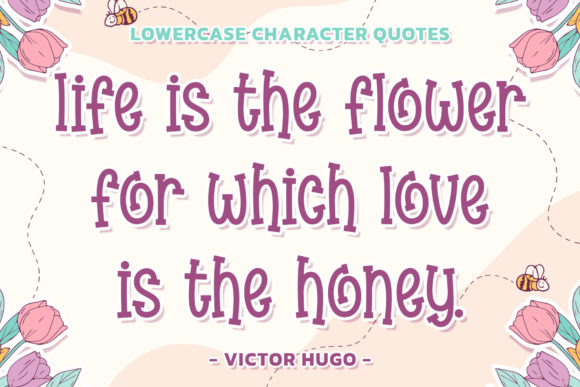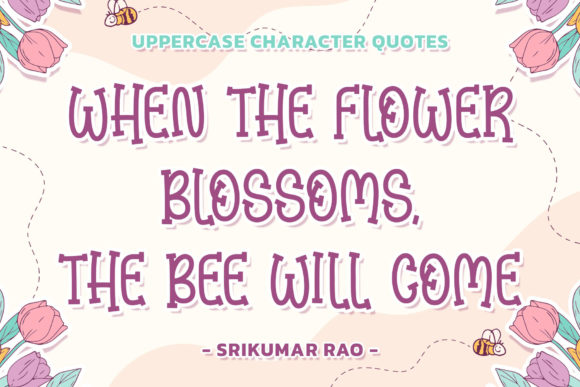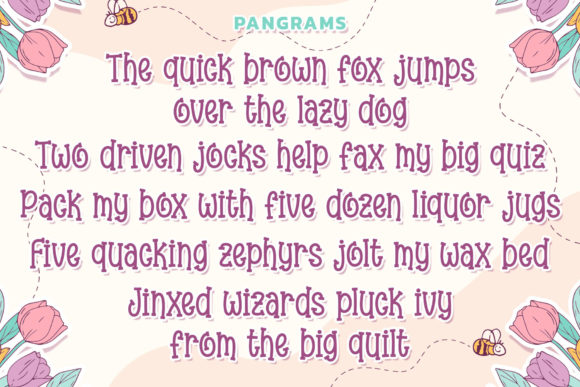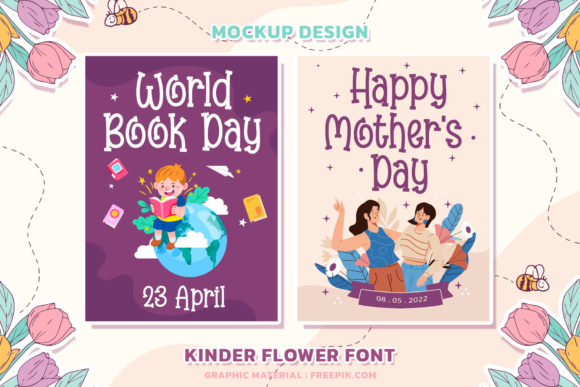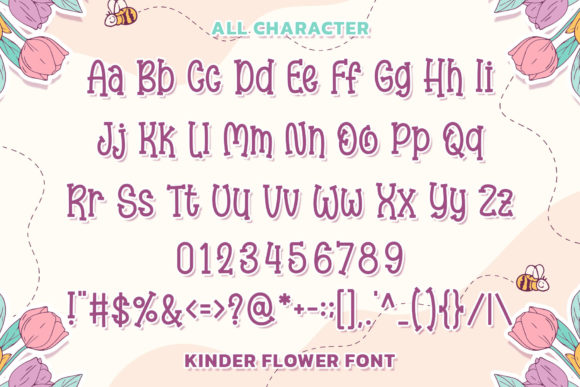
Unleash the Playfulness: Discover the Magic of Kinder Flower Font
Have you ever stared at a blank design canvas, waiting for inspiration to strike? It’s that moment when the perfect font can make all the difference. For designers, finding the right typography can be the key to unlocking a project’s true potential. That’s where Kinder Flower Font comes in – a delightful and stylish font that brings a youthful spirit to any design.
Whether you’re working on a professional branding project or a casual design for a special occasion, Kinder Flower Font is the perfect companion. Its playful nature makes it suitable for a wide range of applications, from labels and business cards to packaging and social media posts. With Kinder Flower Font, designers can add a touch of whimsy and personality to their work, making it truly stand out.
Kinder Flower Font Key Features
- Unique Characteristics: The Kinder Flower Font features a unique, hand-drawn design with intricate details and a whimsical feel, making it perfect for creating child-friendly and playful designs.
Kinder Flower Font Review
I recently had the chance to work with the Kinder Flower Font, and I must say it’s a unique addition to any design project. ✨ One of the things that stood out to me was the font’s playful and whimsical nature, making it perfect for children’s books, nursery decor, or any project that requires a touch of innocence.
- Handwritten Feel: The font has a beautiful, handwritten feel to it, which adds to its charm and makes it perfect for projects that require a personal touch.
- Highly Customizable: The font is highly customizable, allowing designers to adjust the spacing, size, and style to fit their specific needs.
However, there are some limitations to consider. ⚠️ One of the main drawbacks is the font’s limited character set, which may make it difficult to use for longer texts or projects that require a wide range of characters.
Overall, I would say that the Kinder Flower Font is a great choice for designers who want to add a touch of whimsy and personality to their projects. While it may have some limitations, its unique charm and high level of customization make it a valuable addition to any design library.
The Kinder Flower Font is suitable for various design projects, including:
- Children’s books and educational materials
- Wedding invitations and party decorations
- Brand logos and marketing materials
Alternatives to Kinder Flower Font
Great Vibes Font is a modern and elegant script font that is perfect for creating a whimsical and playful atmosphere. It is ideal for use in branding, packaging, and advertising materials where a touch of personality is needed.
Comparison to Kinder Flower Font: While Kinder Flower Font has a more delicate and childlike feel, Great Vibes Font has a more mature and sophisticated tone. Great Vibes Font is also more versatile and can be used in a wider range of applications.
Carolyna Pro Font is a stylish and elegant script font that is perfect for creating a luxurious and high-end feel. It is ideal for use in branding, packaging, and advertising materials where a touch of sophistication is needed.